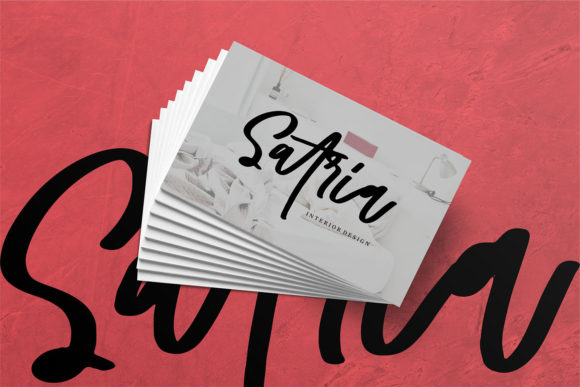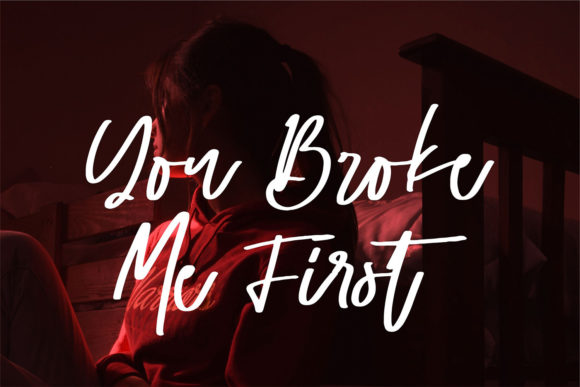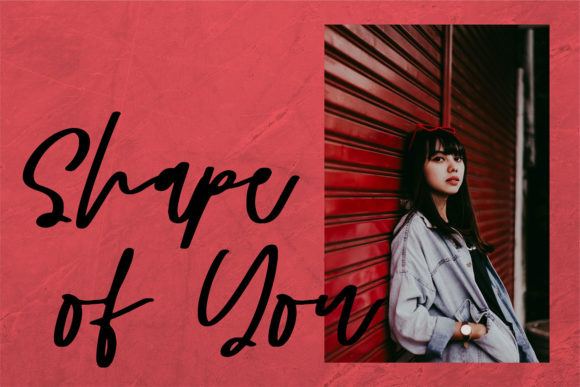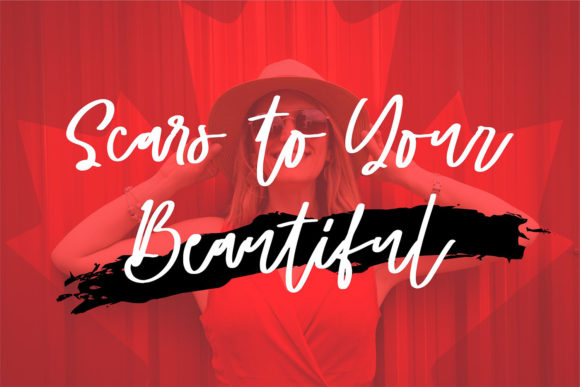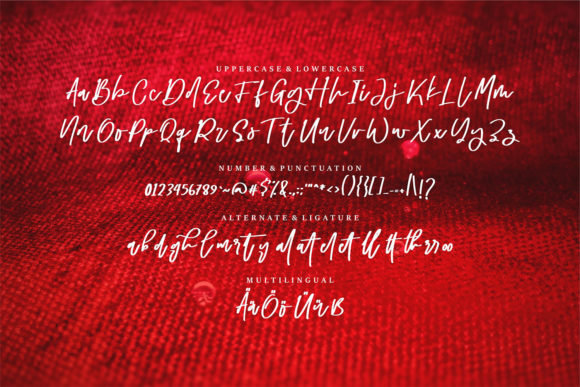
Introducing Hayati Font: The Ultimate Relaxed and Casual Script Font
Are you tired of using the same old fonts in your designs? Do you want to add a touch of elegance and refreshment to your creations? Look no further than Hayati Font, a beautifully crafted script font designed to bring a relaxed and casual vibe to your designs.
What is Hayati Font?
Hayati is a modern script font that exudes a sense of calmness and serenity. Its unique and flowing curves make it perfect for designs that require a personal touch. Whether you’re a designer, craftsperson, or simply a DIY enthusiast, Hayati Font is an excellent choice for anyone looking to add a dash of sophistication to their work.
Key Features of Hayati Font
- Relaxed and Casual: Hayati Font is designed to be relaxed and casual, making it perfect for designs that require a friendly and approachable tone.
- Beautiful and Refreshing: With its unique curves and flowing lines, Hayati Font adds a touch of elegance and refreshment to any design.
- Script Font: Hayati is a script font that mimics the look of handwritten text, making it perfect for designs that require a personal touch.
- Easy to Read: Despite its elegant and cursive nature, Hayati Font is surprisingly easy to read, making it perfect for body text and headings.
Who Can Benefit from Using Hayati Font?
Hayati Font is an excellent choice for a wide range of designers and crafters, including:
- Graphic Designers: Whether you’re working on a branding project, creating social media graphics, or designing a website, Hayati Font is an excellent choice.
- Stationery Designers: Add a touch of elegance to your stationery designs, including wedding invitations, greeting cards, and more.
- Crafters: If you’re a crafter who loves to create handmade products, such as soap labels, candles, or jewelry, Hayati Font is a great choice.
- Bloggers and Writers: Use Hayati Font to add a personal touch to your blog or article designs.
Tips for Using Hayati Font Effectively
To get the most out of Hayati Font, here are some tips to keep in mind:
- Pair it with a Sans-Serif Font: For optimal readability, pair Hayati Font with a sans-serif font, such as Arial or Helvetica.
- Use it for Headings and Titles: Hayati Font is perfect for headings and titles, but can also be used for body text in smaller sizes.
- Experiment with Colors: Hayati Font looks great in a variety of colors, so don’t be afraid to experiment and find the perfect hue for your design.